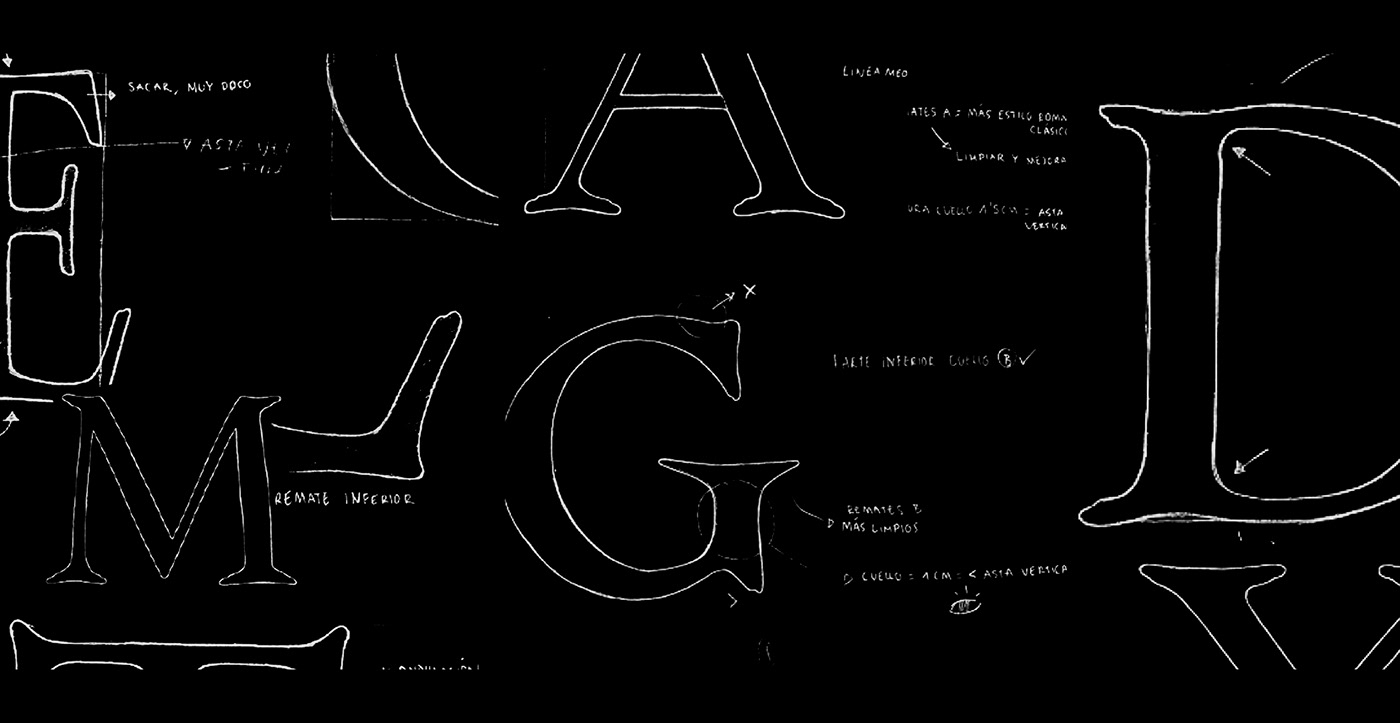
Reina is a regular typeface with more than 350 glyphs, and usable in western, central and southeastern Europe. It has qualities always attributed to southern Spain. The distance far away with any modern typography, the curved and round shapes, the calligraphic style, which always reminds of artisanal. This type was made for a rebranding of Calzados Reina, a small local and neighborhood business that my father currently runs and that my grandfather started, has been the main reason which has inspired me to make a typeface that could adapt to what it is and the values it has.
All the shapes and letters had been done in Glyphs, always inspired on the antique roman typefaces, looking for a traditional style and making manual strokes, with lot of curves, and looking for a rounded type design, far away from slanted auctions. This type face is perfect por long texts, big capital titles, and a close contact and communication with the client.
REINA TYPEFACE